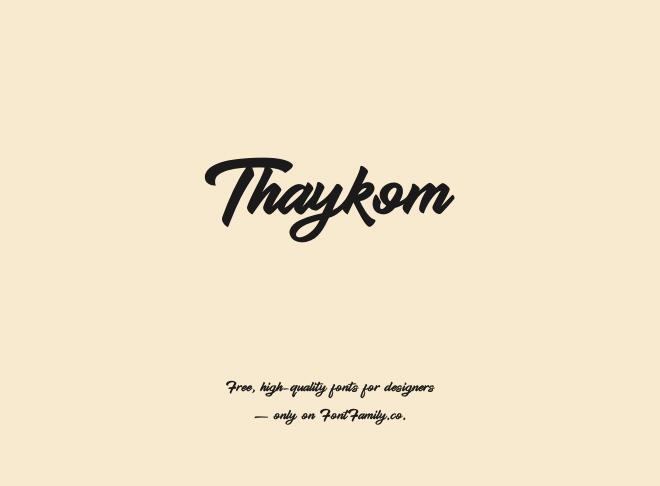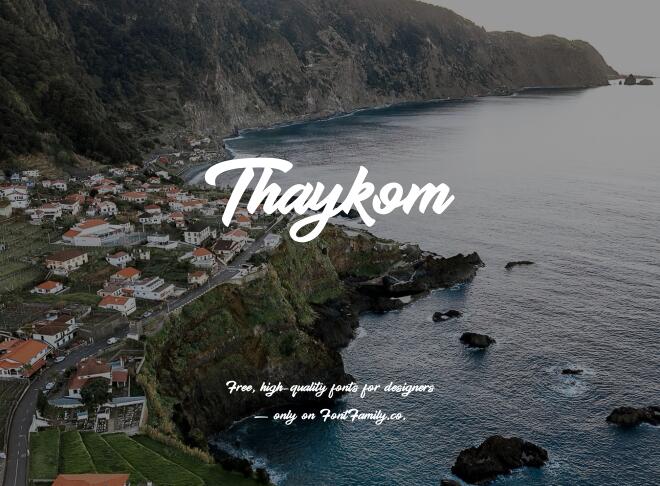
Thaykom Font
Thaykom Font is a modern, elegant script font designed by Thaykom Design Studio. With its handwritten style, it effortlessly combines sophistication and casualness. This font is reminiscent of modern calligraphy, making it perfect for wedding invitations, greeting cards, branding materials, business cards, quotes, posters, and more. Its fluidity makes it a great choice for designs aiming to convey elegance and modernity. Thaykom Font is comparable to popular fonts such as Bombshell Pro and Carolyna Pro Black, with its own unique characteristics that set it apart. It is free for personal use, making it an excellent choice for designers wanting to add a touch of elegance to their projects.